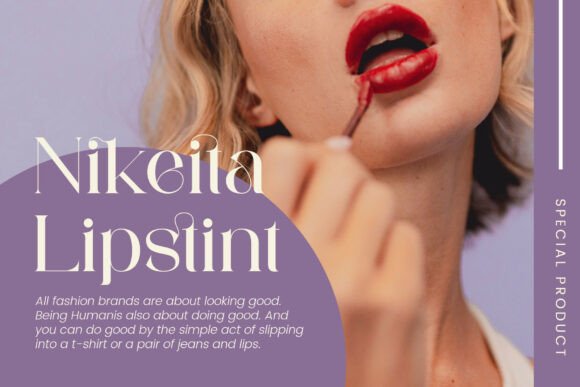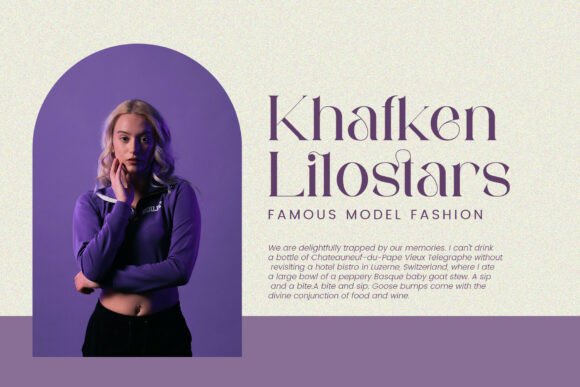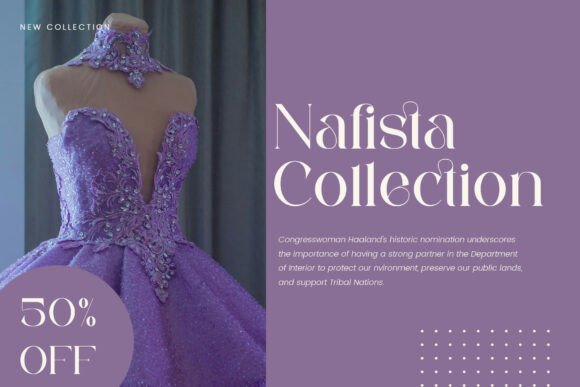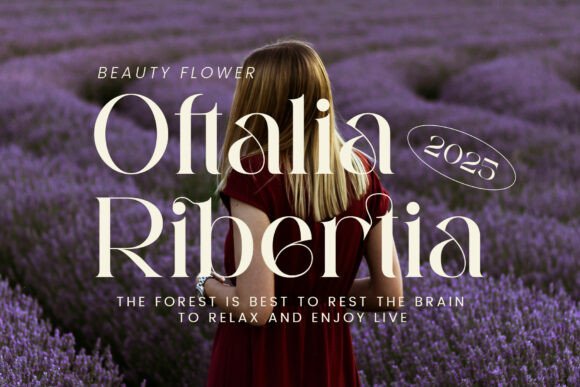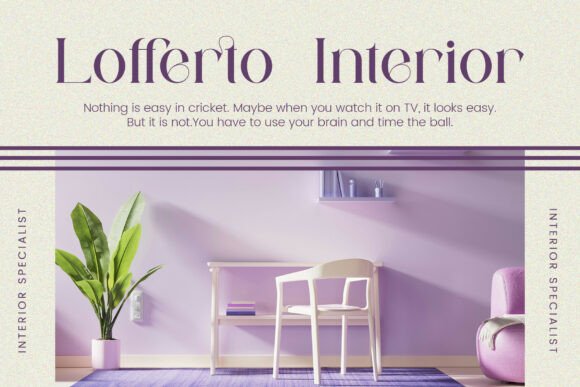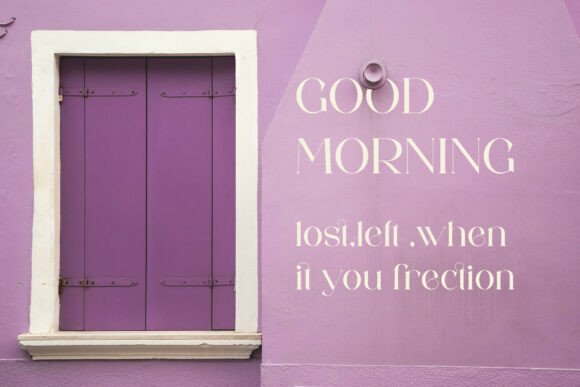
The Gafitte Font: A Designer’s New Best Friend
I’ll never forget the project that led me to discover the Gafitte font. I was working on a branding campaign for a trendy boutique hotel, and I needed a serif font that exuded elegance and sophistication. After hours of scouring font libraries and testing various options, I stumbled upon Gafitte. Its stylish, minimalist aesthetic instantly caught my eye, and I knew I’d found the perfect fit.
- ✨ Elegant, refined design that’s perfect for high-end branding and advertising
- ✅ Highly versatile: works beautifully in various contexts, from digital videos to print brochures
- ⚡️ Easy to read, even at smaller font sizes
- 🎨 Beautifully crafted to take advantage of OpenType features and glyphs
While Gafitte is an exceptional font, it’s not without its quirks. For instance:
- 🤔 Some users may find the font’s minimalist aesthetic too subtle for certain design applications
- ⚠️ Limited availability of certain stylistic alternates, which may limit creative flexibility
The Designer Inspiration Behind Gafitte
Gafitte was inspired by the minimalist design movement of the 20th century. Its creator aimed to craft a font that embodied the elegance and sophistication of iconic logos from the era. The result is a font that’s both refined and versatile, perfect for a wide range of design applications.
| What is Gafitte’s primary design style? | Gafitte is a stylish serif font with a minimalist aesthetic. |
| Is Gafitte suitable for body text? | Yes, Gafitte is easy to read, even at smaller font sizes, making it suitable for body text. |
| Does Gafitte support OpenType features? | Yes, Gafitte takes advantage of OpenType features, such as ligatures and stylistic alternates, to enhance its typographic capabilities. |